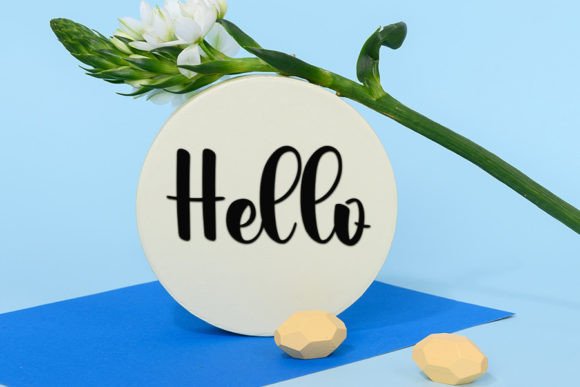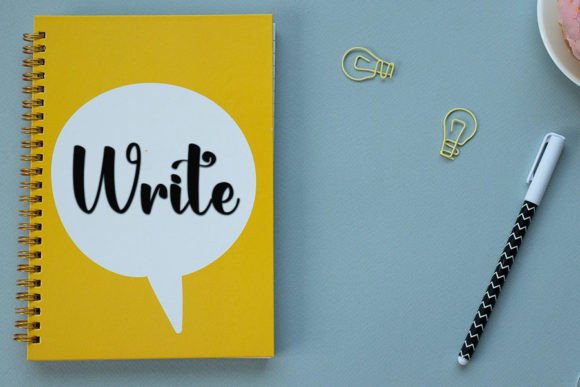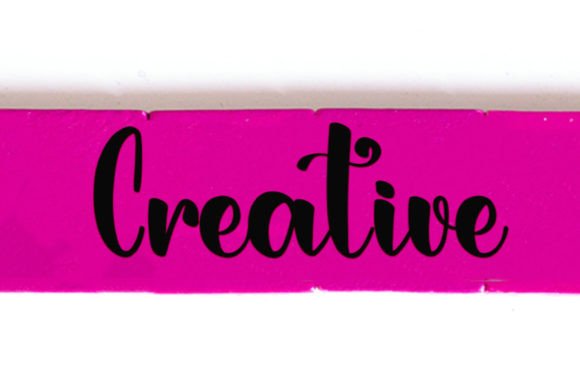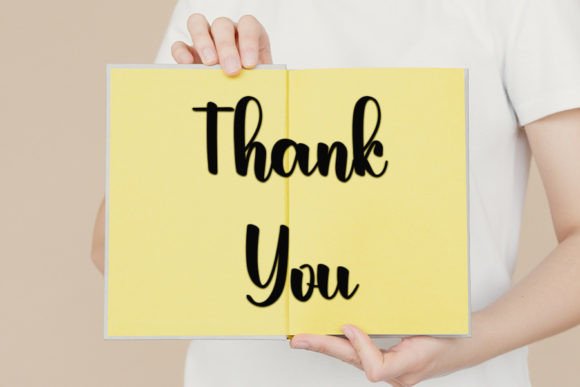
Bible Font: A Timeless and Elegant Handwritten Font for Your Design Projects
Are you a designer or crafter looking for a unique and beautiful font to elevate your projects? Look no further than the Bible Font, a stunning handwritten font that exudes elegance and sophistication. With its distinct and timeless style, this font is perfect for creating spectacular designs that will leave a lasting impression.
What is Bible Font?
Bible Font is a carefully crafted handwritten font that is described by its elegant touch. Its unique and intricate design makes it stand out from other fonts, and its versatility ensures that it can be used for a wide range of projects. Whether you’re working on a logo, a poster, a website, or any other design project, Bible Font is sure to add a touch of class and sophistication.
Key Features of Bible Font
- Elegant and Refined Design: Bible Font boasts an incredibly distinct and timeless style that is both elegant and refined. Its intricate design and beautiful lines make it perfect for creating sophisticated designs.
- Handwritten with Love: This font is carefully crafted with love and attention to detail, giving it a personal and human touch that sets it apart from other fonts.
- Versatile and Adaptable: Bible Font is highly versatile and can be used for a wide range of projects, from logos and posters to websites and social media graphics.
- Easy to Read and Understand: Despite its intricate design, Bible Font is easy to read and understand, making it perfect for body text and other large blocks of text.
Why Choose Bible Font?
- Unique and Distinctive: Bible Font is a truly unique and distinctive font that will set your designs apart from the crowd.
- Highly Versatile: This font can be used for a wide range of projects, making it a great addition to any designer’s toolkit.
- Elegant and Sophisticated: Bible Font adds a touch of elegance and sophistication to any design, making it perfect for projects where you want to make a lasting impression.
How to Use Bible Font in Your Design Projects
- Pair it with Other Fonts: Bible Font pairs well with other fonts, so don’t be afraid to experiment with different combinations to find the perfect look for your project.
- Use it for Headings and Titles: Bible Font is perfect for headings and titles, where its elegant design can really shine.
- Add it to Your Website or Blog: If you’re a web designer or blogger, consider adding Bible Font to your website or blog to give it a touch of elegance and sophistication.